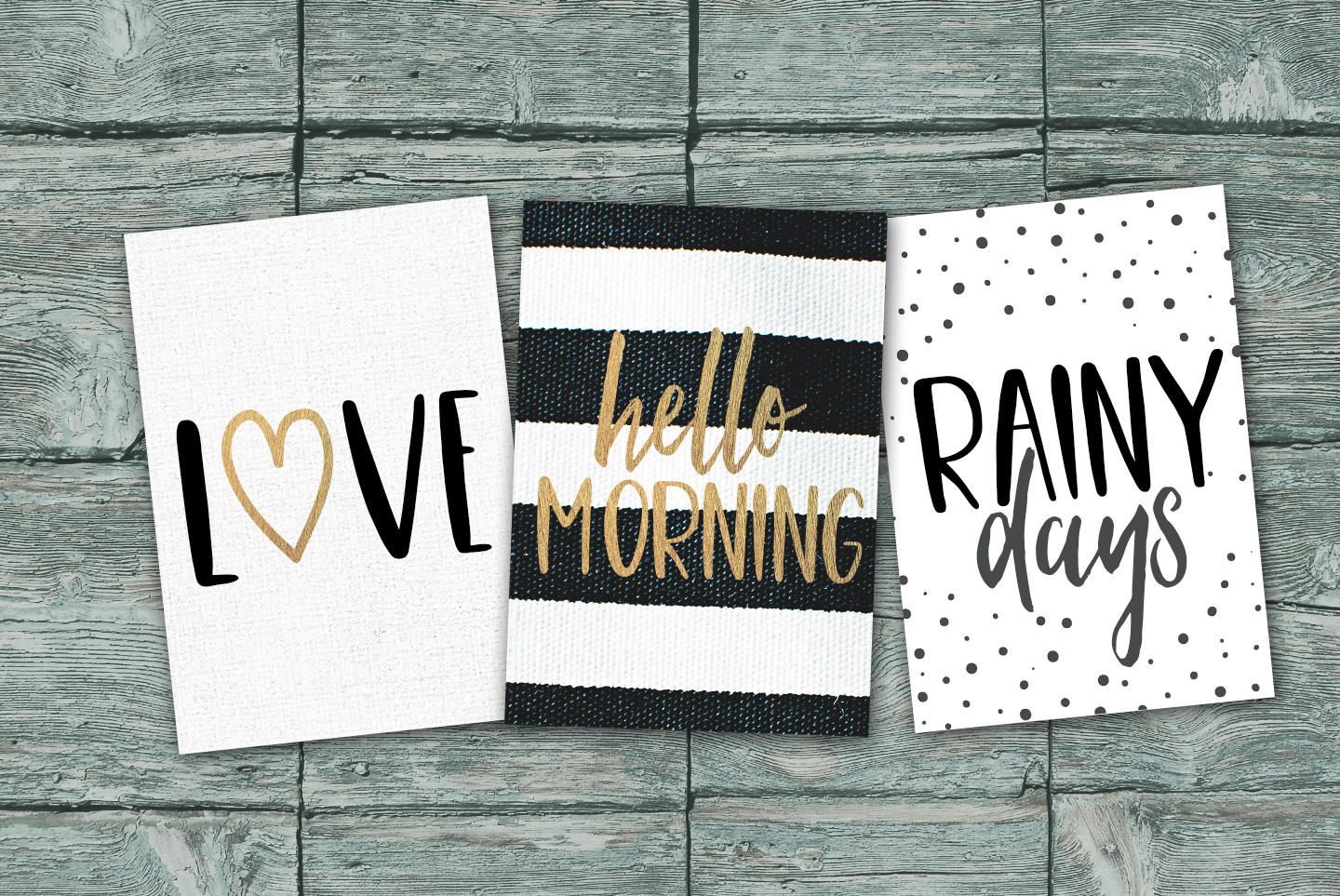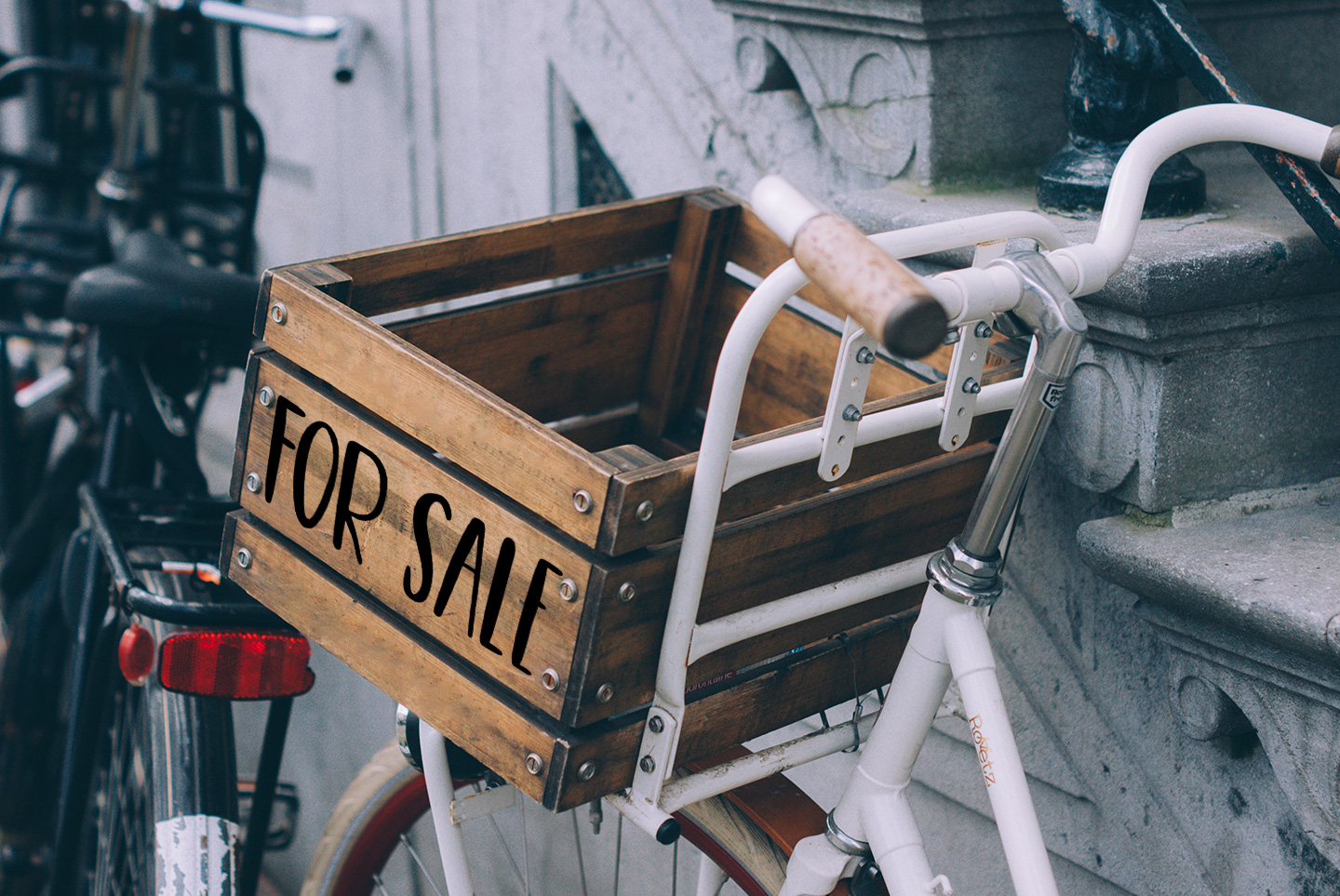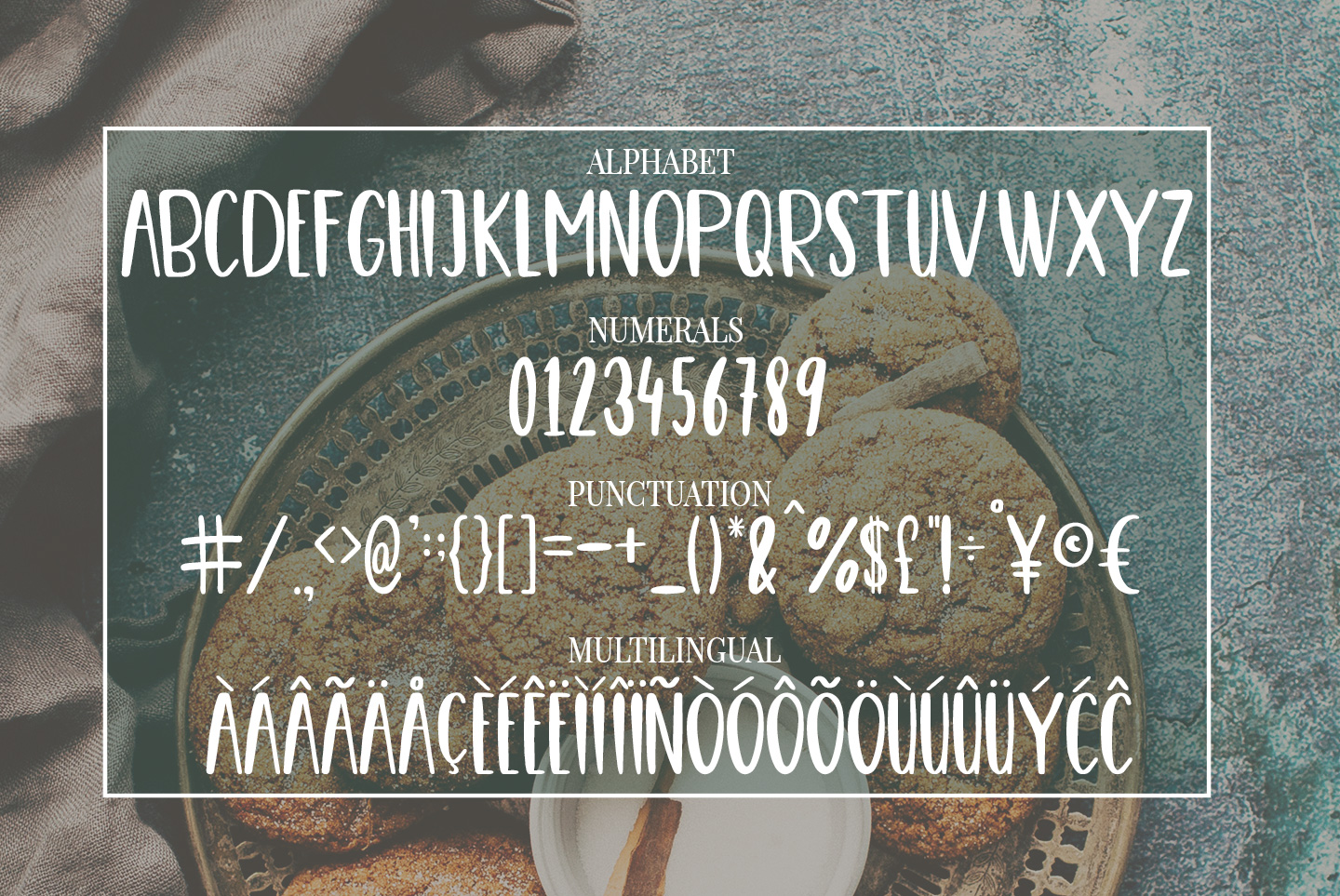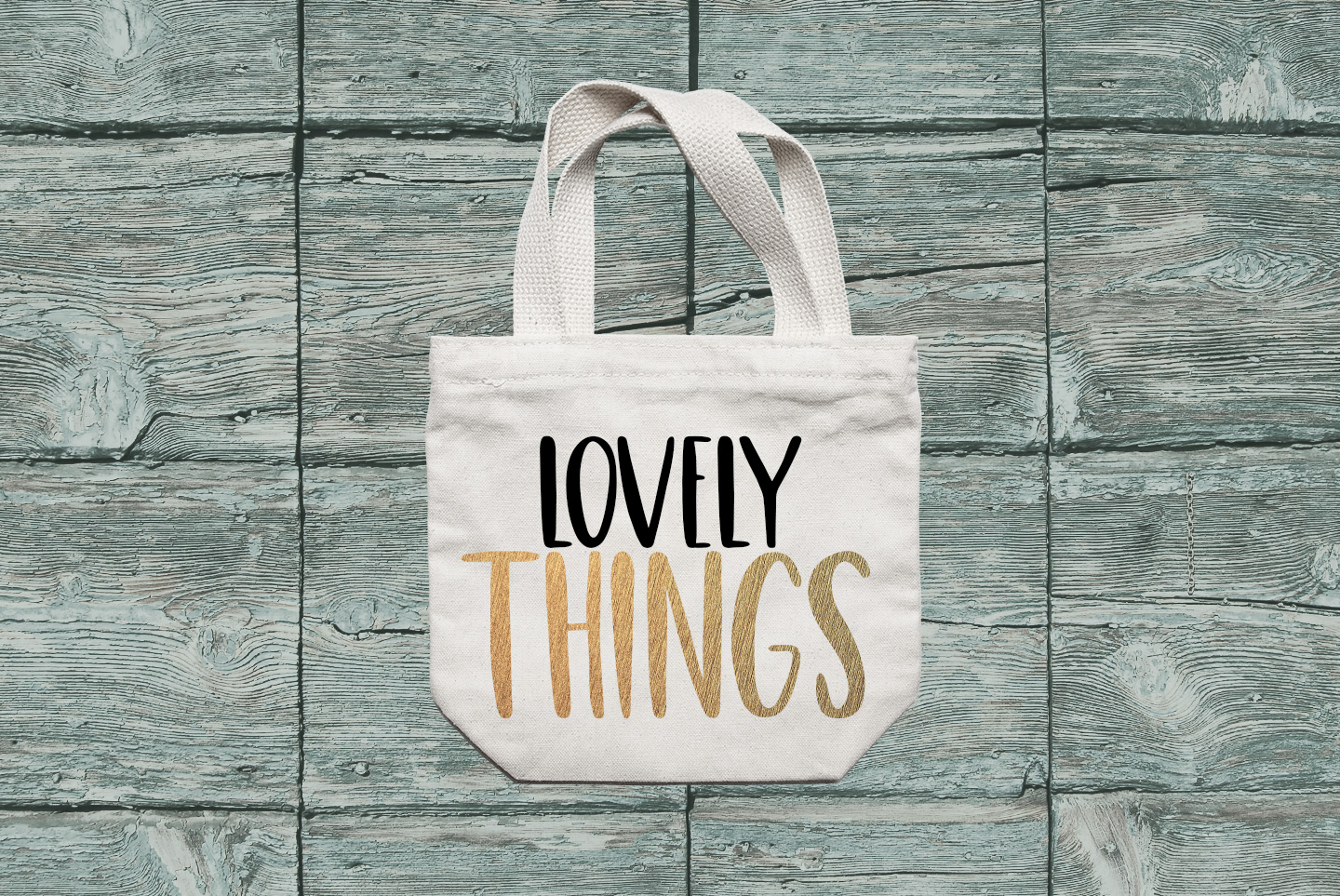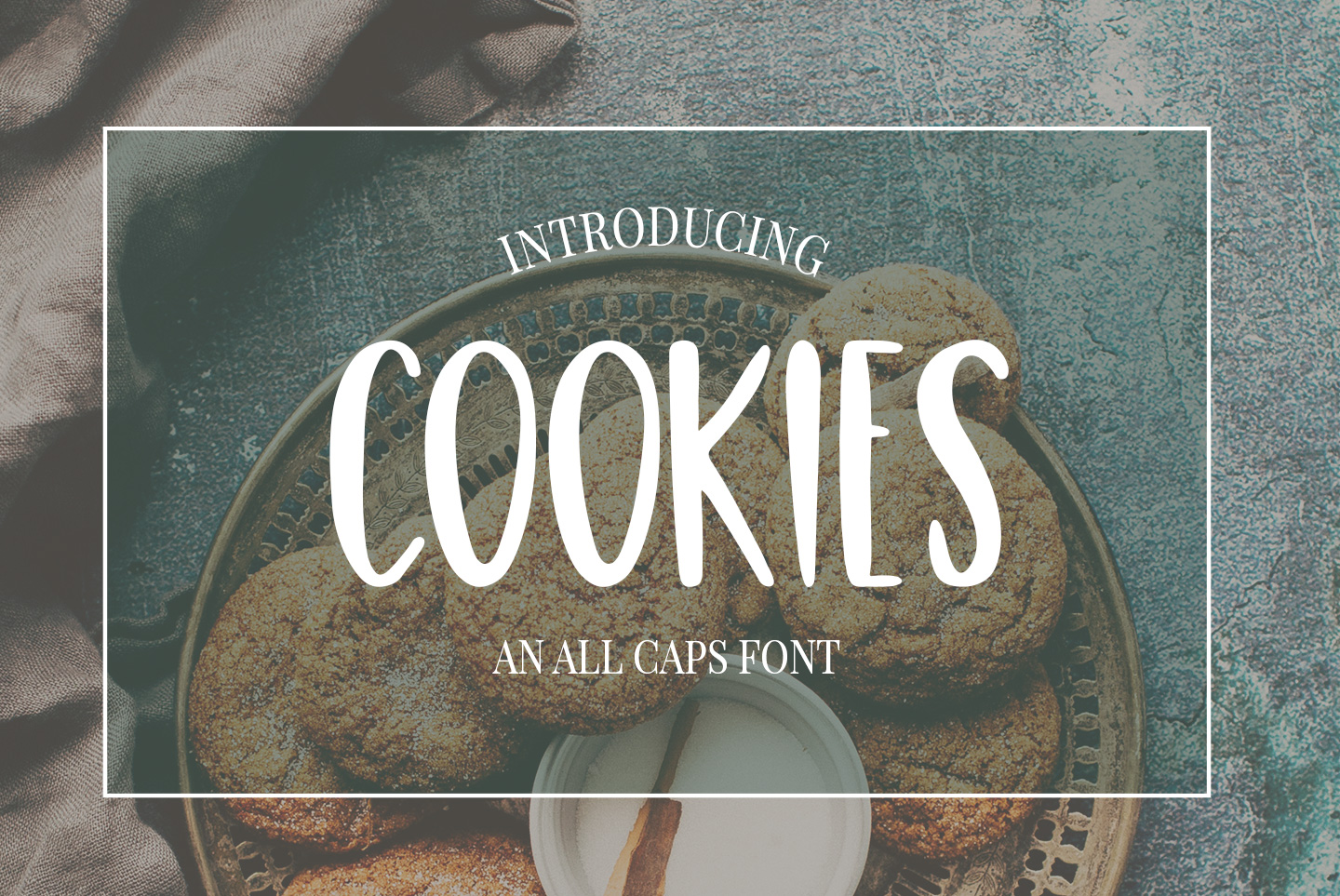
Cute Casual, Handwritten font COOKIES
COOKIES a fun and casual all caps font. Great for Menu’s, cards, Logo’s, Posters, Packaging, Invites, Flyers, and any other designs.